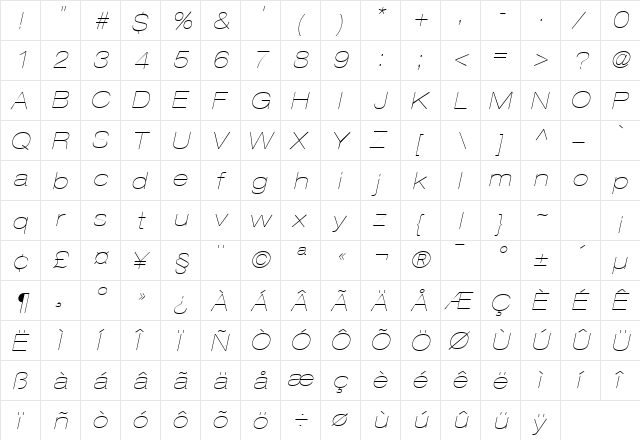
HeaveneticaExtd2 ULtOblSH Font Preview
HeaveneticaExtd2 ULtOblSH
Design Context for HeaveneticaExtd2 Typeface
HeaveneticaExtd2 takes a measured approach to typography — its balanced proportions and neutral character make it a reliable workhorse for both digital and print work.